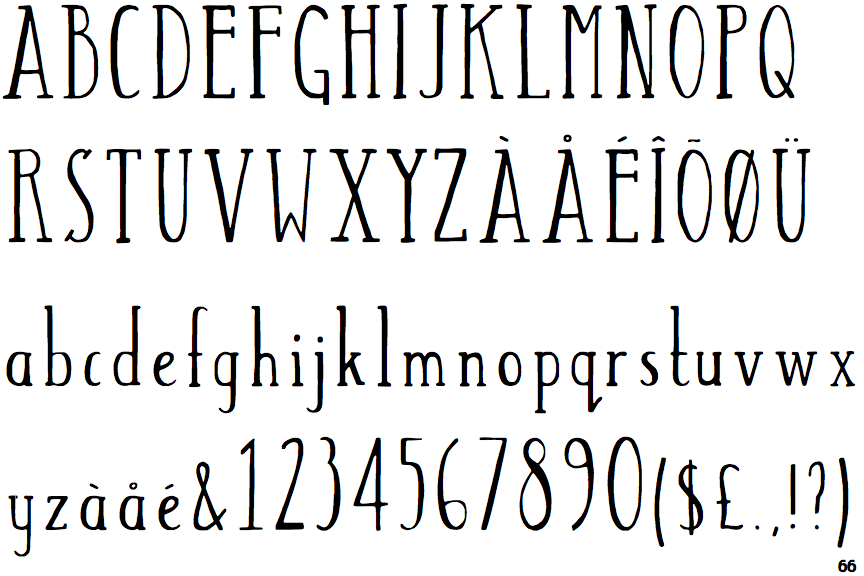
Review Of Tall Serif Fonts 2022
Review Of Tall Serif Fonts 2022. Web making the web more beautiful, fast, and open through great typography Serifs have their roots in ancient roman square capitals, and became widely.
Web making the web more beautiful, fast, and open through great typography Web a retro serif that blends old principles with the new, restora is a versatile font with tall letterforms and artful serifs. We could consider this font both thin and condensed at the same time.
We could consider this font both thin and condensed at the same time. Rummy tall serif by bunny dojo. Web as an example, take a look at this tall thin serif font.
Its Proportions Are Condensed, And The.
Simple, Charming, And Whatever The French Word For “Tall” Is… That’s How I’d Describe Cafe Francoise.